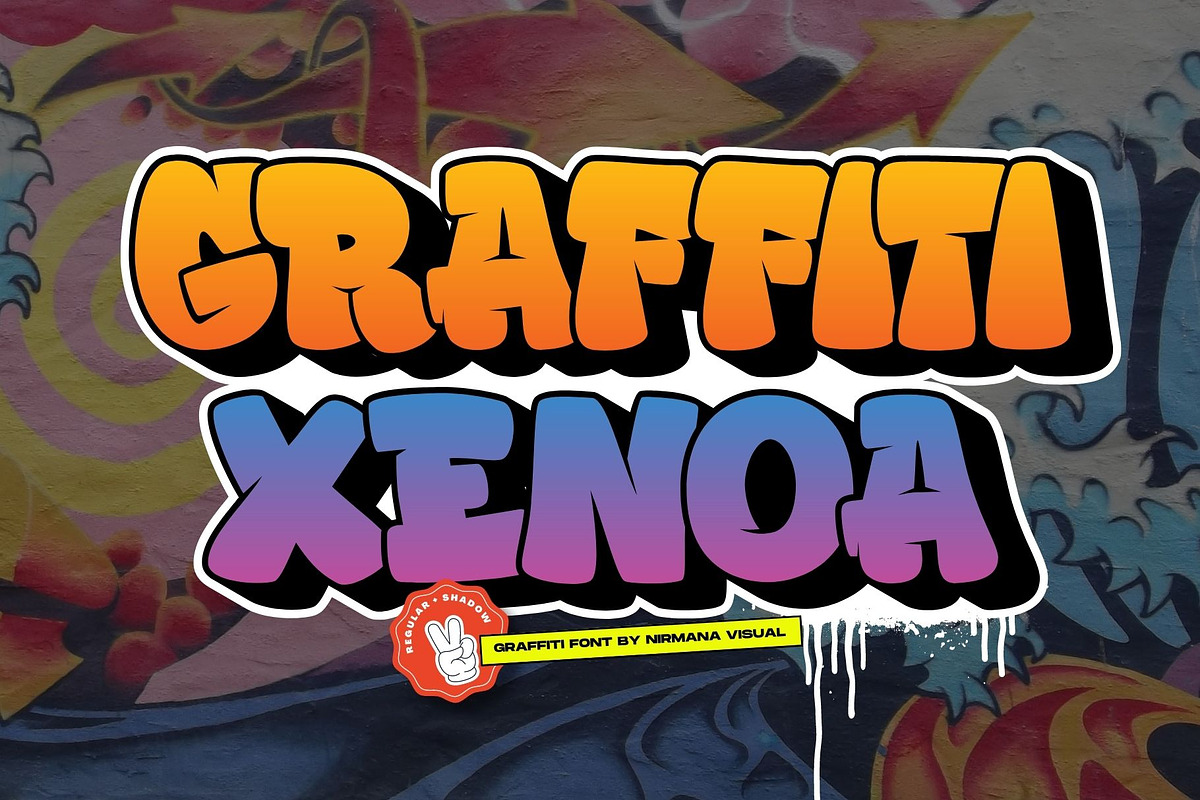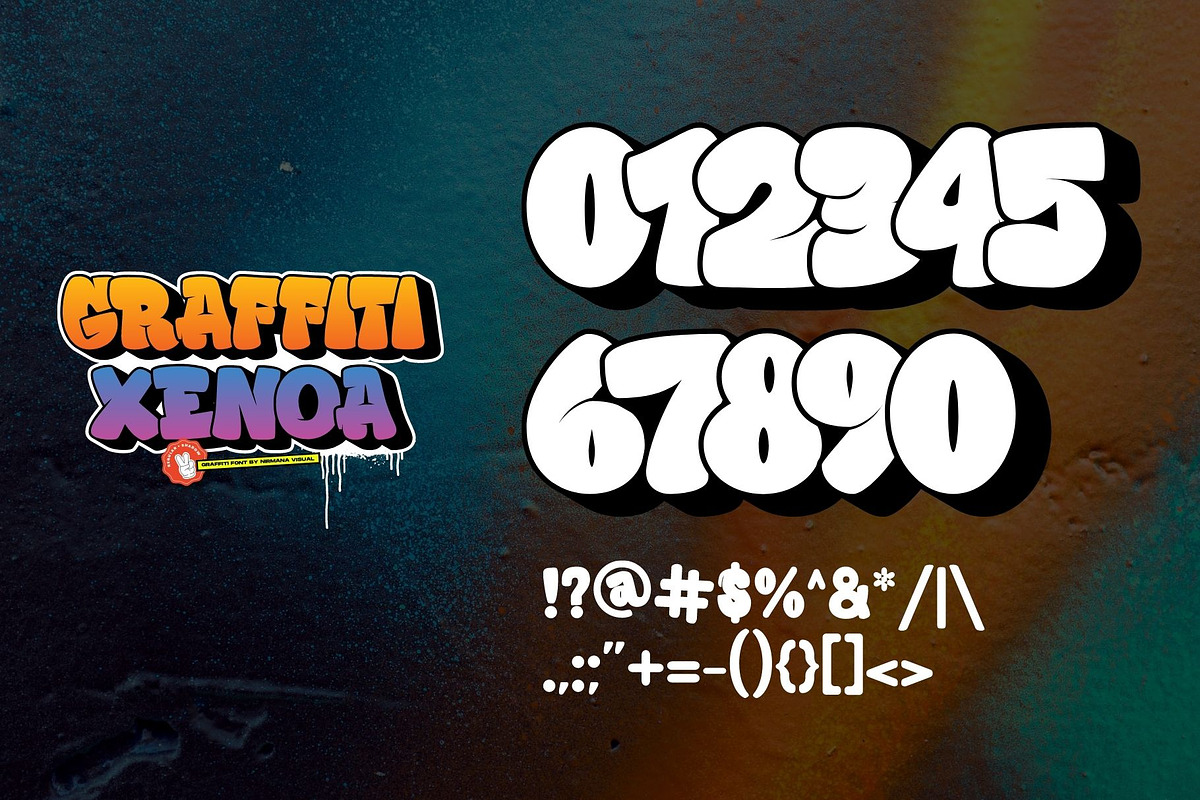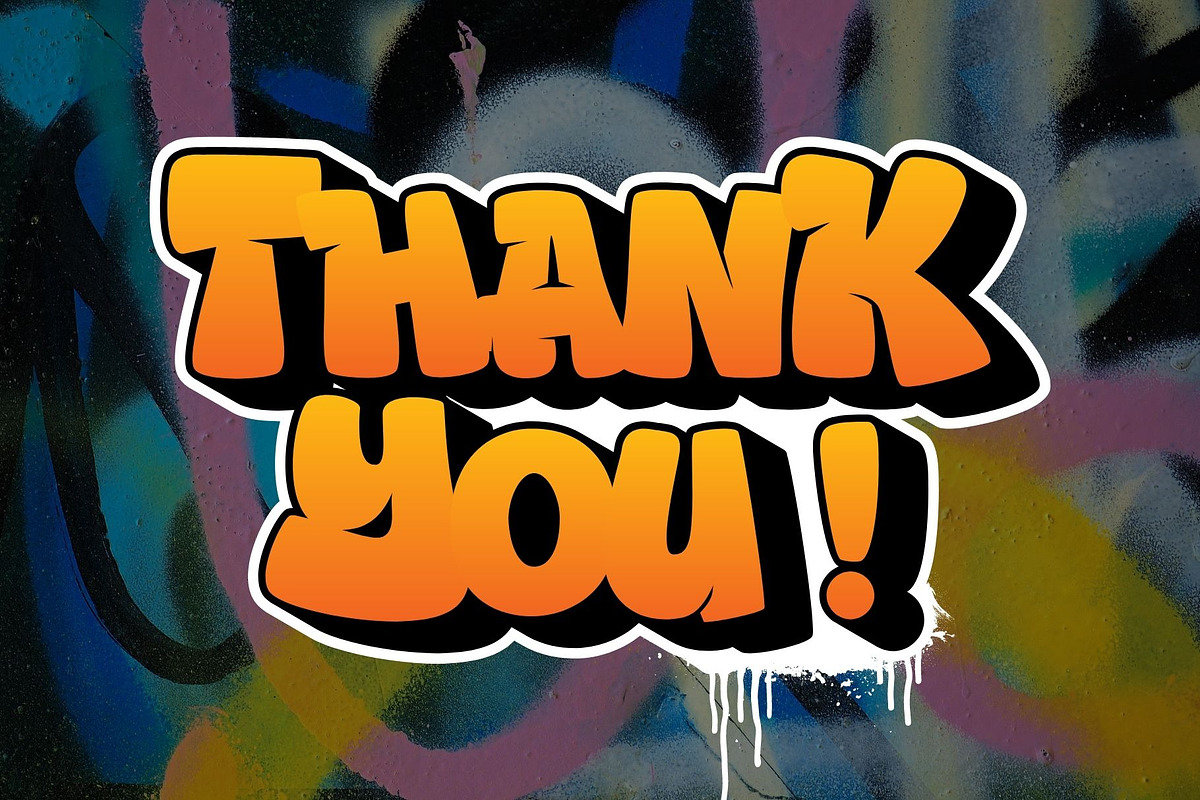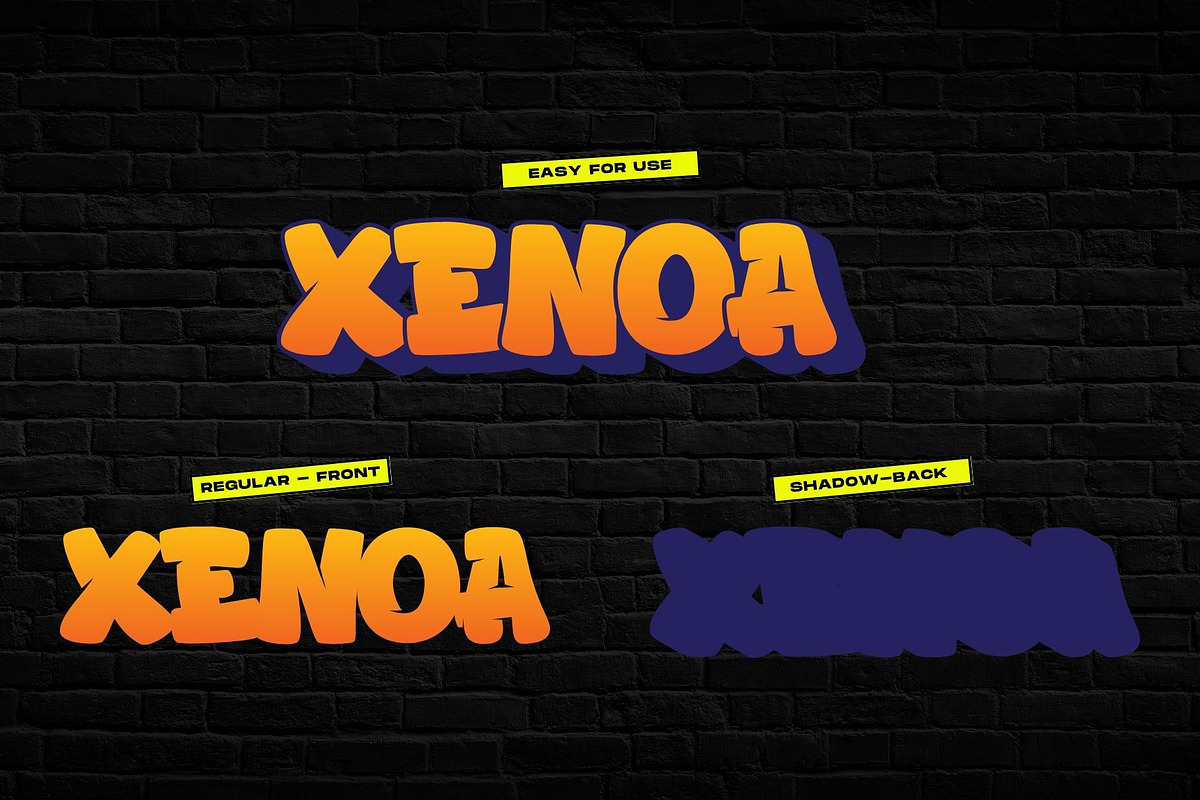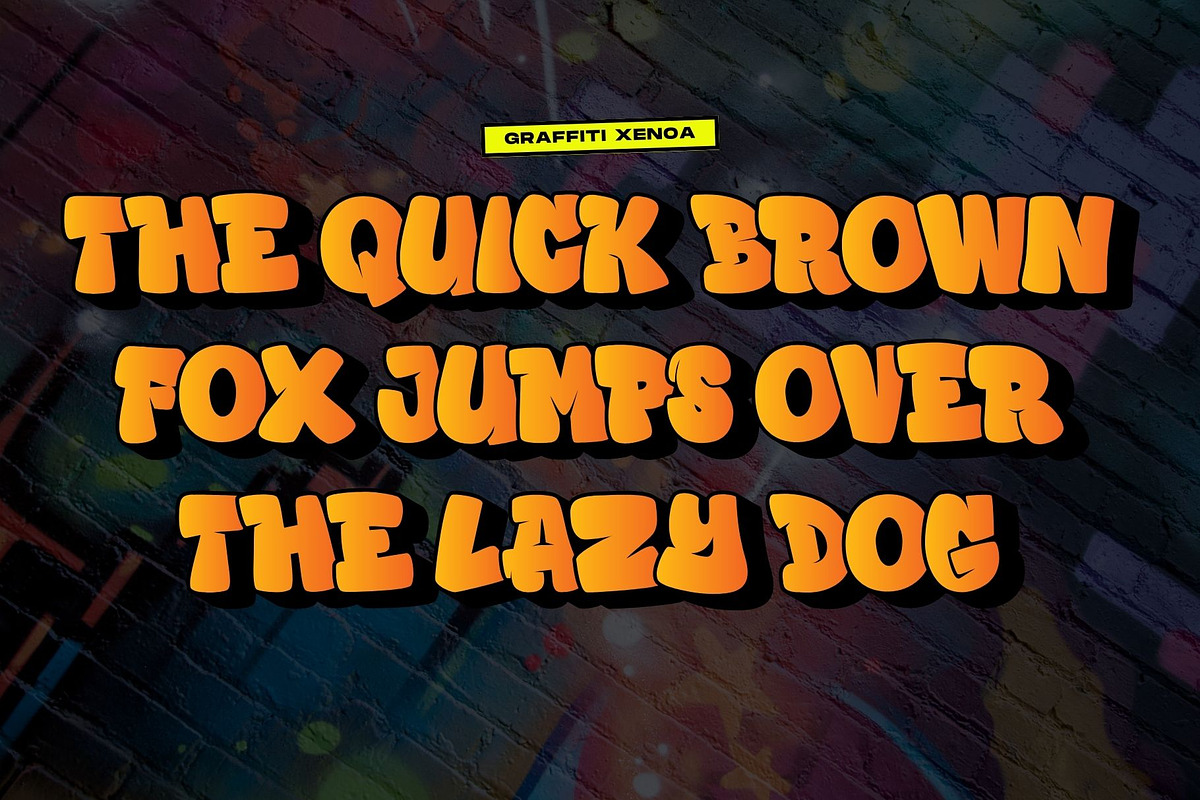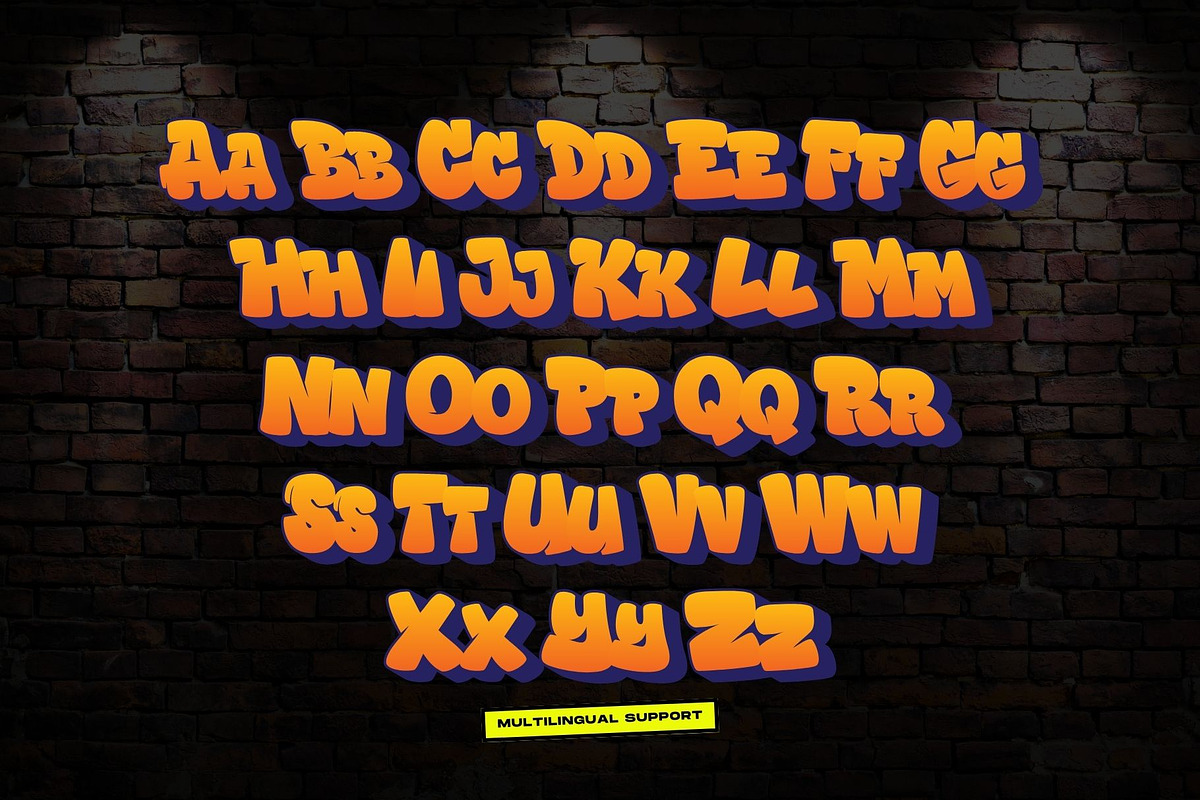
Graffiti Xenoa - Graffiti Bombing
Graffiti Xenoa is a fun, urban-style display font. This font is suitable for designs like logos, advertising, apparel, jerseys, sportswear, skateboard designs, and more. Take your concepts to the next level with this stunning font!